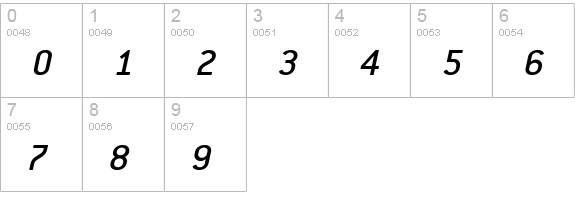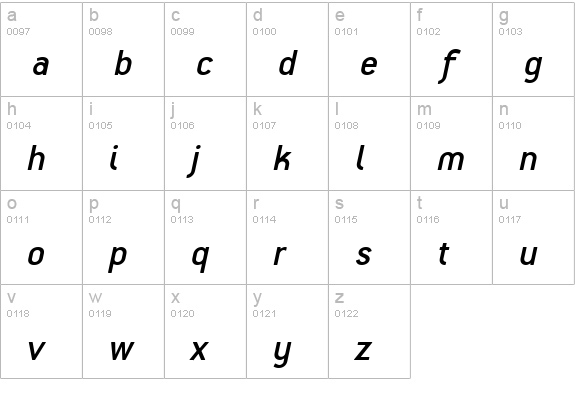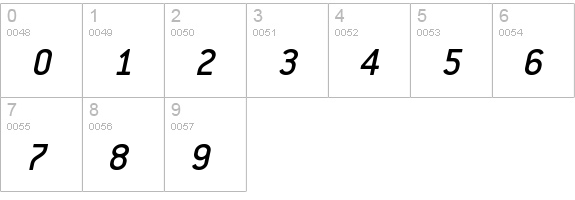
PFPremier Medium Italic Font Details
PFPremier Medium Italic is a balanced, medium-weight, italic variant in the PFPremier typeface family \xE2\x80\x94 well suited to sub-headlines, navigation, and balanced editorial work.
PFPremier Medium Italic font is a stylish and versatile typeface that exudes elegance and sophistication. Its sleek design and subtle curves make it perfect for a wide range of design projects, from branding to editorial layouts. The italic style adds a touch of flair and personality to any text, making it stand out from the crowd. And the best part? PFPremier Medium Italic font is available for free download at FontsMarket.com. This means you can access this premium quality font without having to spend a dime. So whether you're working on a professional project or simply looking to elevate your personal designs, PFPremier Medium Italic font is the perfect choice. Download it today and add a touch of class to your typography arsenal.